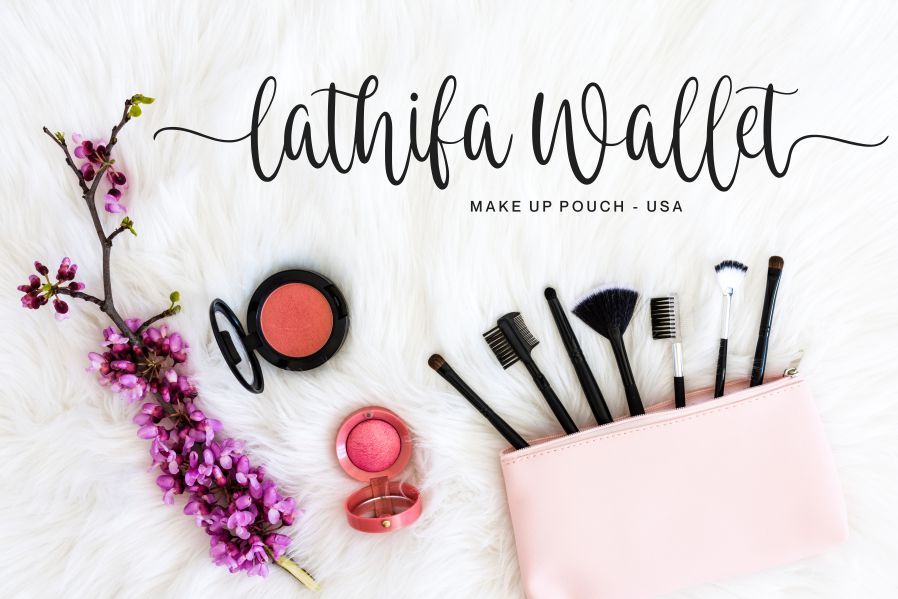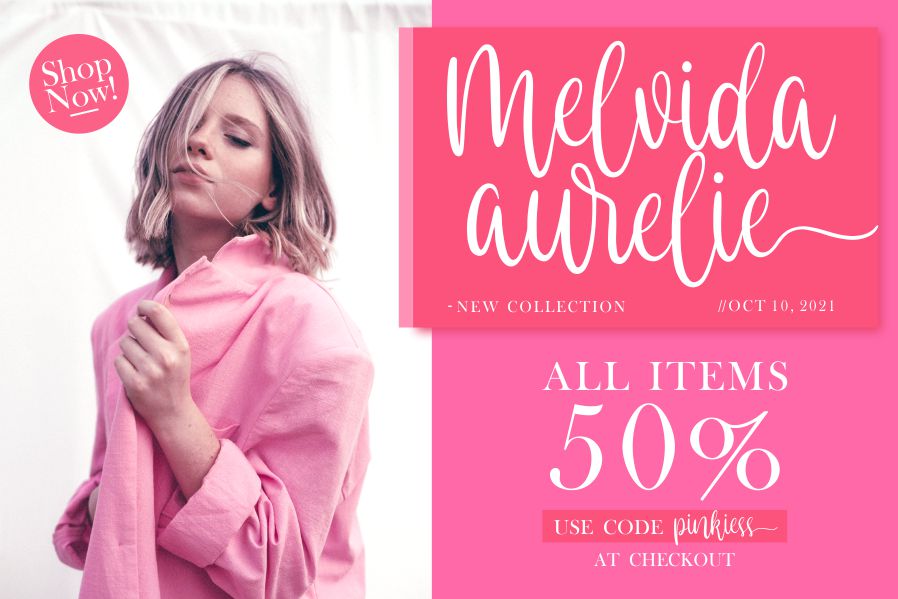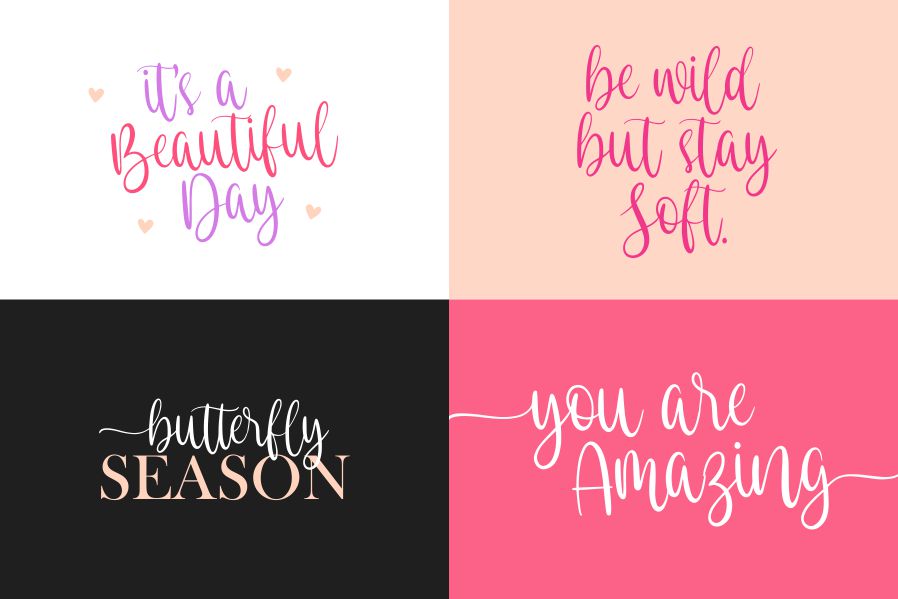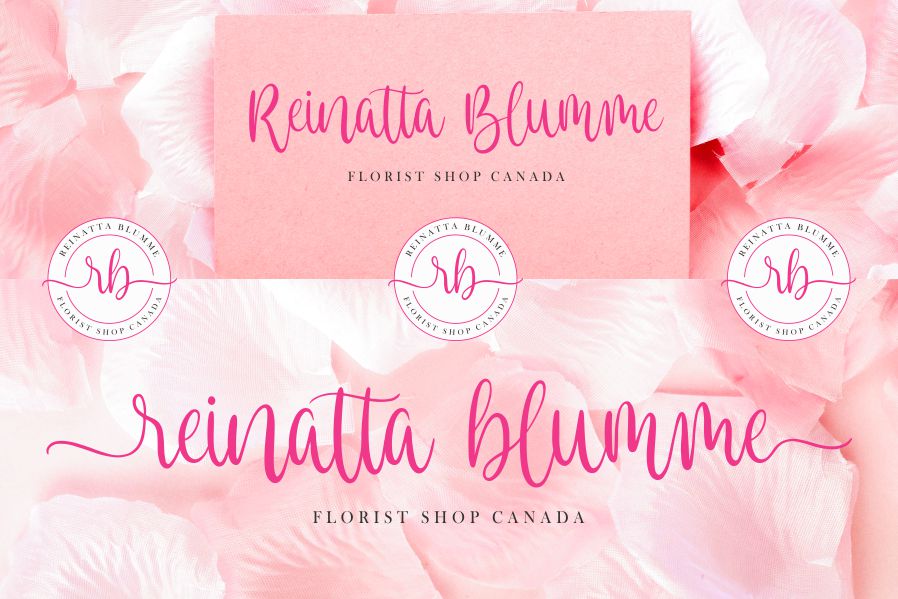
Eastlovely Script Font
It’s a beautiful and refined script font. It has a classy, elegant and modern look. This font is PUA encoded which means you can access all glyphs and swashes with ease!